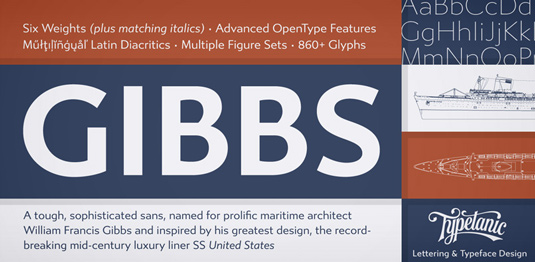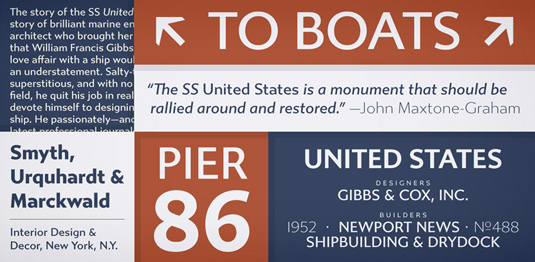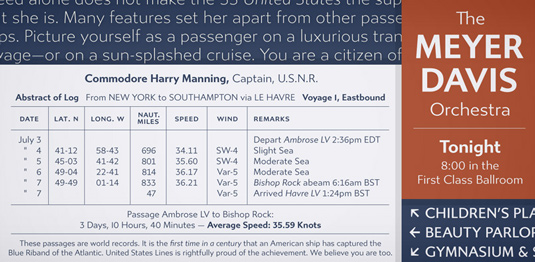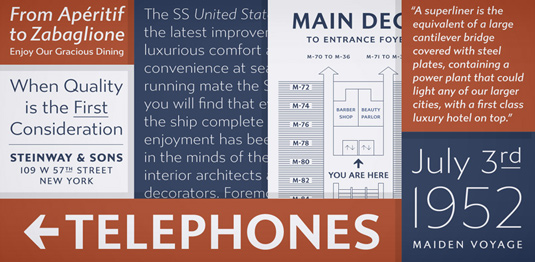
Font of the day: Gibbs
Gibbs from Typetanic Fonts
Our typeface of choice today is Gibbs from font foundry Typetanic Fonts. Available from HypeforType, the design is described as 'a tough, sophisticated sans, named after maritime architect William Francis Gibbs and inspired by his greatest design, the record-breaking mid-century luxury liner SS United States.
'Taking various cues from the unique cast aluminum signs found on board, the result is truly transatlantic — somewhere in between industrial American vernacular lettering and the English humanist styles of Gill or Johnston. Both stylish and comfortable to read, and with an extensive list of OpenType features, Gibbs allows you to set quality type with ease at both text and display sizes'.